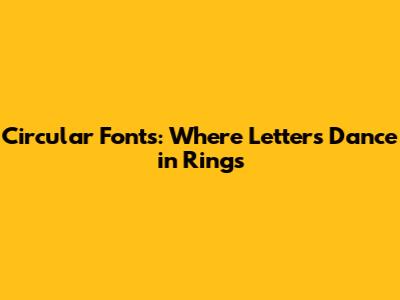
- Roboto: This is a classic sans-serif font, is known for its clean lines and versatility. While not strictly a circular font, it has a rounded design that lends itself well to the circular aesthetic. It is free and available on Google Fonts.
- Raleway: Another popular sans-serif font, Raleway has a modern and elegant feel. It features rounded letterforms that make it a great choice for logos and headlines. It is also available on Google Fonts.
- Circular: As the name suggests, this font is all about circles! It has a bold and playful design, with letters that seem to be squeezed into circular shapes. It's perfect for making a statement.
- Poppins: This is a geometric sans-serif font with a friendly and approachable feel. It is known for its rounded letterforms and clean lines, making it a great choice for various design projects.
- Montserrat: This is a versatile sans-serif font. While not purely circular, it has rounded letterforms that make it adaptable. It's a popular choice for websites and branding.
Hey guys, have you ever stumbled upon a font and thought, "Wow, that's different!" Maybe it was the way the letters seemed to huddle together, or perhaps they were nestled inside perfect circles. If that sounds familiar, you might have encountered a circular font! These fonts are all about embracing the round, and they bring a unique vibe to any design. Today, we're diving deep into the world of circular fonts, exploring what makes them tick, where you can find them, and how you can use them to add a dash of pizzazz to your projects. Let's get started, shall we?
Unveiling the Magic of Circular Fonts
So, what exactly is a circular font? Well, at its core, it's a font where the letters are designed to fit within circles or circular shapes. This doesn't necessarily mean every single letter is a perfect circle, but the overall design often incorporates round elements and a sense of enclosure. Imagine letters gracefully curving along the edges of a circle, or perhaps the letters themselves are the circles! This creates a visually appealing and often modern aesthetic. These fonts go beyond just the letters; they're about the whole feel. They evoke a sense of unity, completeness, and even a touch of playfulness. It's like the letters are having a little party inside their circular homes.
One of the most appealing aspects of circular fonts is their versatility. They can be used for a wide range of design projects, from logos and branding to website headers and social media graphics. They are super adaptable and can fit into various designs. Think about it: a logo with circular fonts immediately grabs attention and conveys a sense of modernity and approachability. A website header using this font can create a sleek and contemporary look. Even in social media posts, circular fonts can make your text pop and stand out from the crowd. These fonts add an element of visual interest that's hard to ignore. It is like they are saying "Hey, look at me! I'm different!". They are especially effective when you want to create a sense of cohesion and balance in your design. Because of the round shapes, it all kind of just fits together.
Characteristics that Define a Circular Font
When we talk about circular fonts, we're not just talking about any font with a vague roundness. We're looking at specific characteristics that make them stand out. First of all, the design incorporates curves and circles. That is pretty much a given! The letters are designed to fit within the confines of circles. This can be achieved in several ways: The letters themselves can be shaped like circles (think of a perfect "O"), or the overall design can incorporate circular elements that create a sense of enclosure. Secondly, there is a sense of balance and harmony. Circular fonts often have a balanced and harmonious design, which contributes to their visual appeal. The round shapes create a sense of visual unity, making the font feel cohesive and easy on the eyes. Letterforms are carefully crafted to work together, so they don’t look too disjointed. Thirdly, circular fonts often evoke specific moods and feelings. These fonts have a unique ability to communicate messages. They are often associated with modernity, playfulness, and approachability. They can also create a sense of elegance or sophistication, depending on the specific design and application. The choice of font says a lot about your message. Finally, many have a modern aesthetic, and have clean lines and a contemporary feel. This makes them a popular choice for designers looking to create a fresh and up-to-date look. This can be great for brands or projects that want to be viewed as current and on-trend.
Where to Find These Round-Lettered Beauties
For premium options, consider exploring platforms like Adobe Fonts (formerly Typekit) or Creative Market. These sites offer a curated selection of high-quality fonts designed by professional typographers. While they may come with a price tag, the investment can be worth it if you're looking for unique and well-designed fonts. They usually offer more features and greater design details. Another option is to check out the websites of independent font foundries. These are often the go-to places for more unique and specialized fonts. You may find fonts that you cannot find anywhere else. They also support independent creators!
Popular Circular Font Choices
Okay, let's get down to specifics. If you're looking for some popular and readily available circular fonts, here are a few that you might want to check out:
These are just a few examples. Do your own research! There are tons of other fonts to explore. Spend some time browsing different font websites to see what catches your eye. Remember to consider the mood and feel you want to convey and choose a font that aligns with your design goals.
Putting Circular Fonts to Work: Design Tips and Tricks
Alright, you've found a circular font you love. Now, how do you use it effectively? Using circular fonts isn't just about slapping them onto your project. There are a few design tips and tricks that can help you get the most out of these fonts and create a visually appealing result.